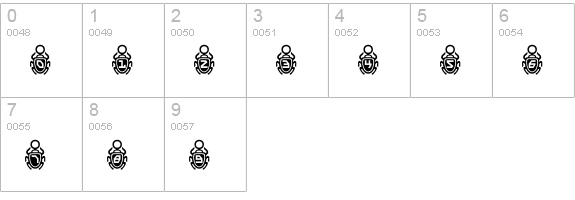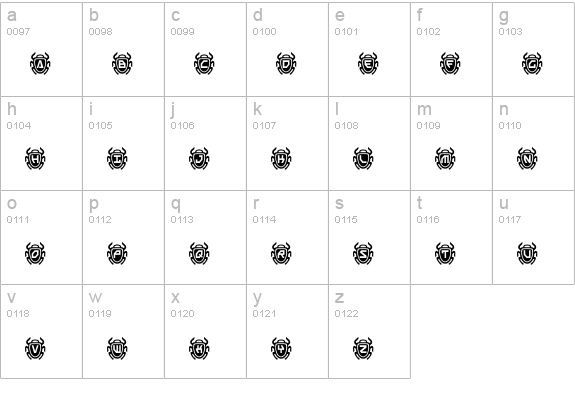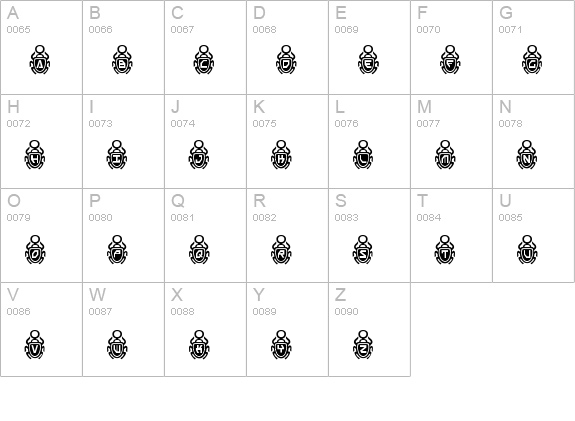
Scarab Border Font Details
Scarab Border font is a beautifully designed typeface that exudes elegance and sophistication. Its intricate details and unique border elements make it perfect for adding a touch of luxury to any project. The font features a combination of sharp edges and smooth curves, creating a visually striking contrast. Scarab Border font is not only visually stunning but also highly versatile. It can be used for a wide range of design purposes, including logos, branding, invitations, and more. Its timeless appeal makes it suitable for both modern and classic designs. One of the best things about Scarab Border font is that it is freely available to download at FontsMarket.com. This means that you can easily access and use the font without any cost or restrictions. Whether you are a professional designer or a hobbyist, this free font offers you the opportunity to enhance your creativity and bring your projects to life. The attention to detail in Scarab Border font is truly remarkable. Each character is meticulously crafted, ensuring that every letter and symbol stands out with utmost clarity. The border elements add an extra layer of visual interest, making the font a standout choice for those who want to make a statement with their designs. If you are looking for a font that combines beauty, versatility, and affordability, Scarab Border font is the perfect choice. Download it for free at FontsMarket.com and unlock a world of design possibilities. Whether you are creating a logo, designing a website, or working on a print project, this font will elevate your work to new heights.